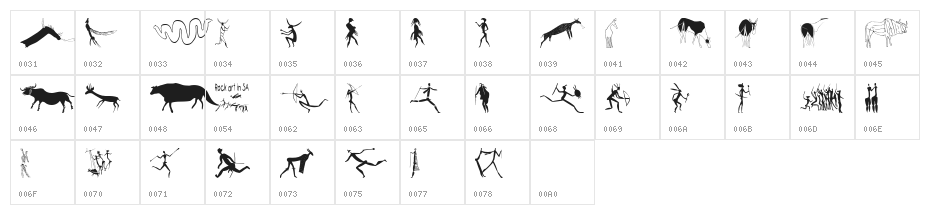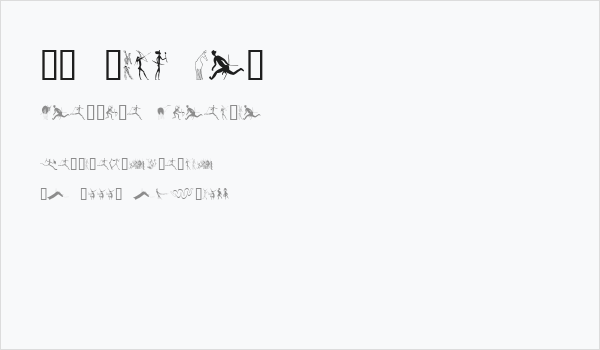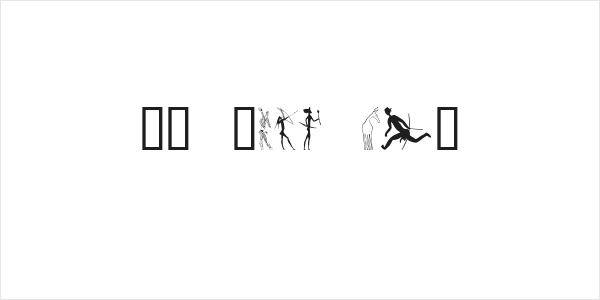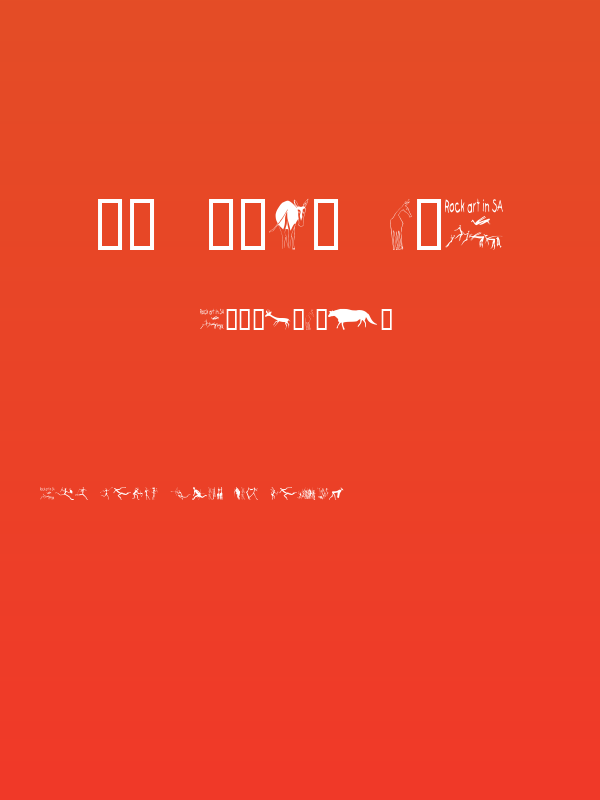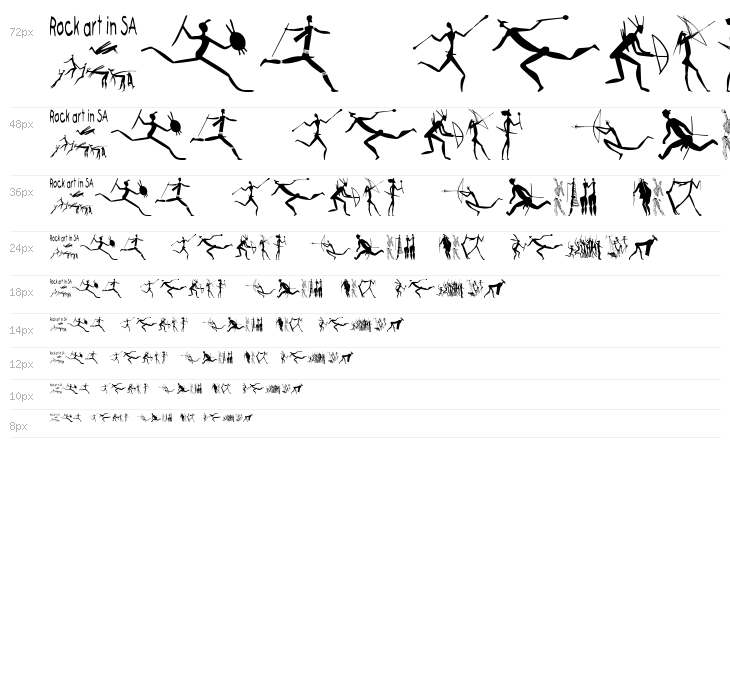
SL Rock Art Font
SL Rock Art Description
A decorative font inspired by ancient rock art, featuring glyphs that resemble hand-drawn figures, animals, and symbols with a primitive, illustrative style. The characters are irregular, organic, and mimic prehistoric cave paintings.
| Overall Style | Decorative, Primitive, Historical |
| Use Case | Logos, Posters, Themed Headlines, Educational Graphics |
| Proposed Projects | Educational materials, museum displays, historical documentaries, themed posters, cultural event branding. |